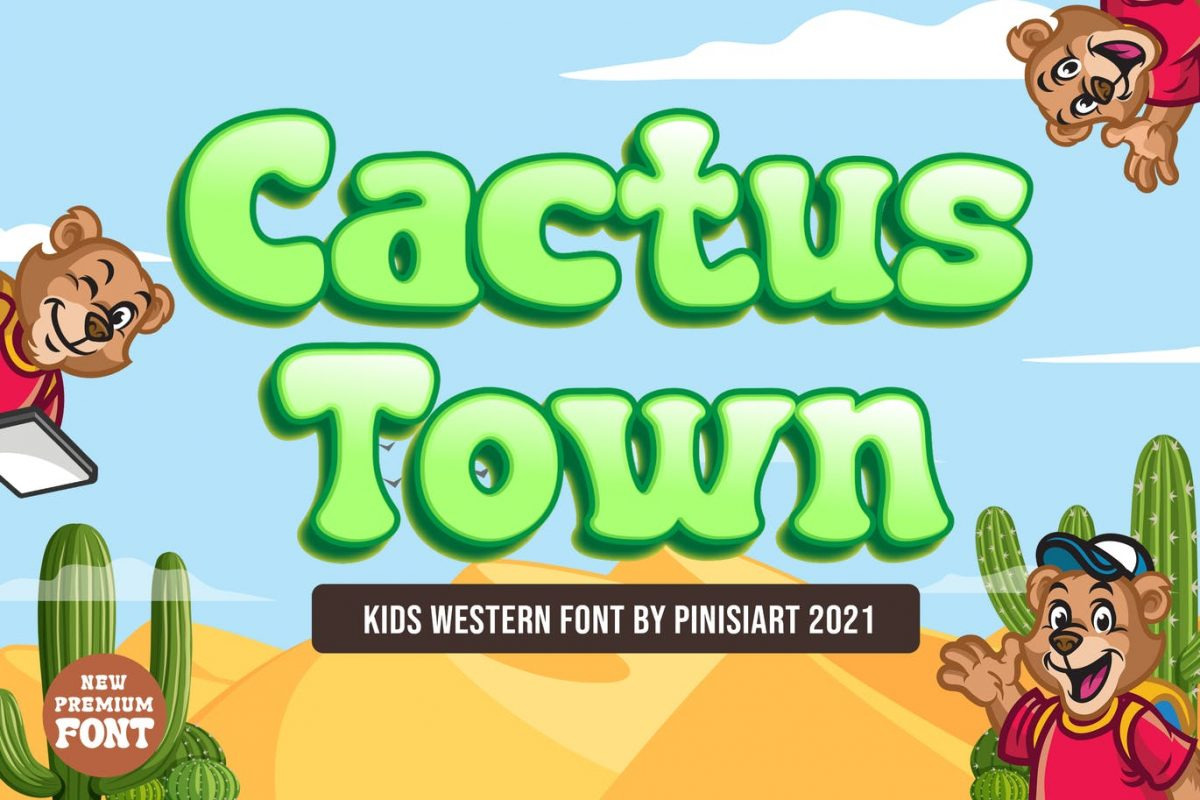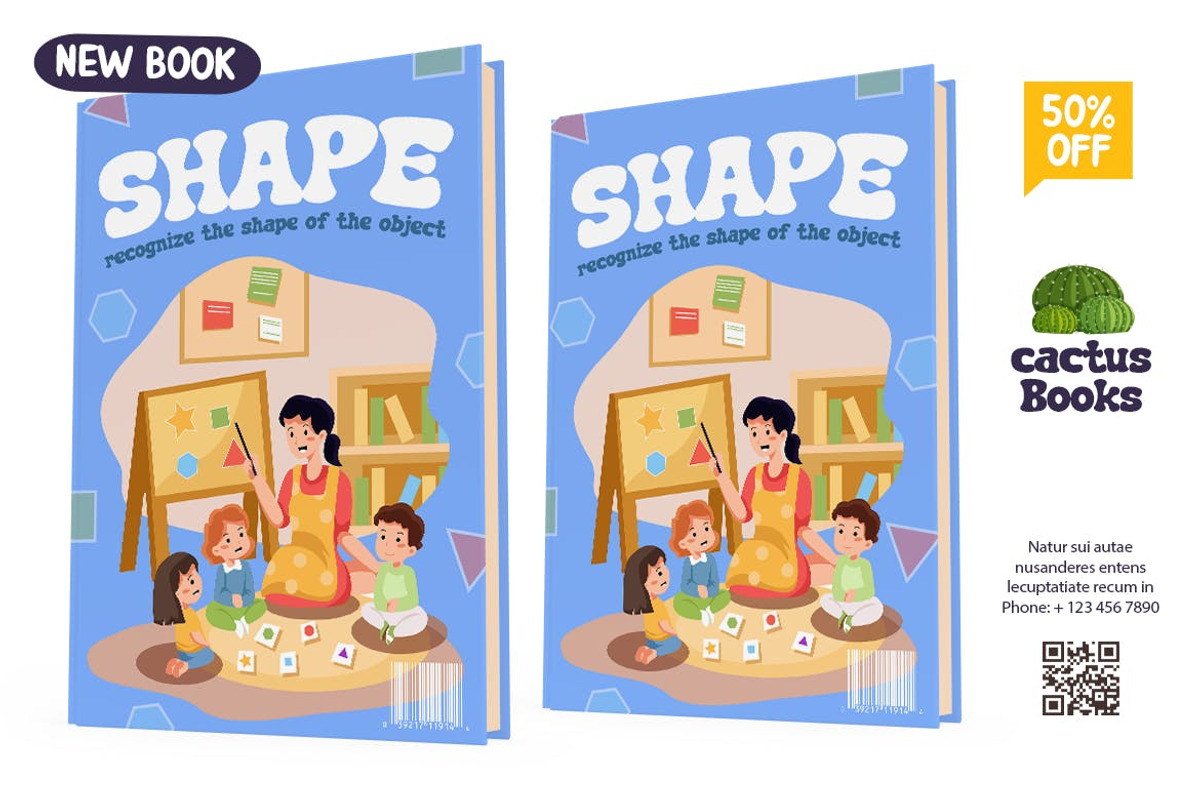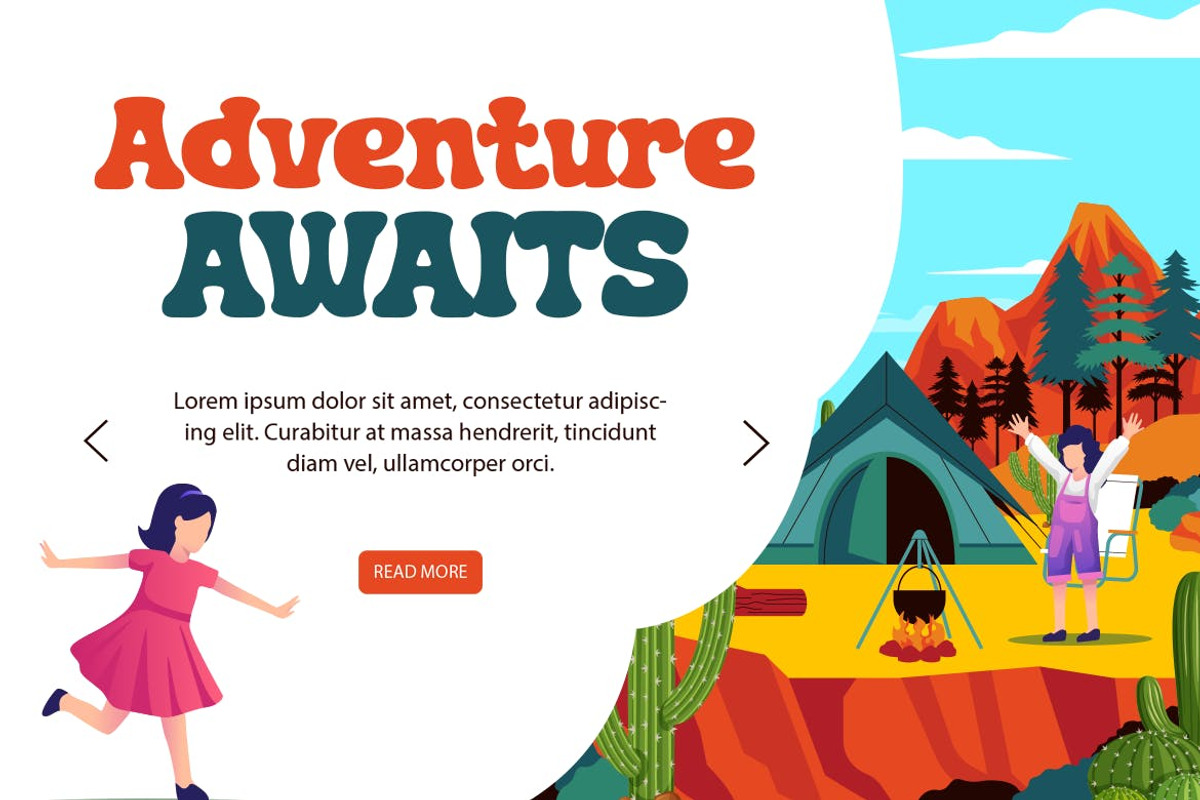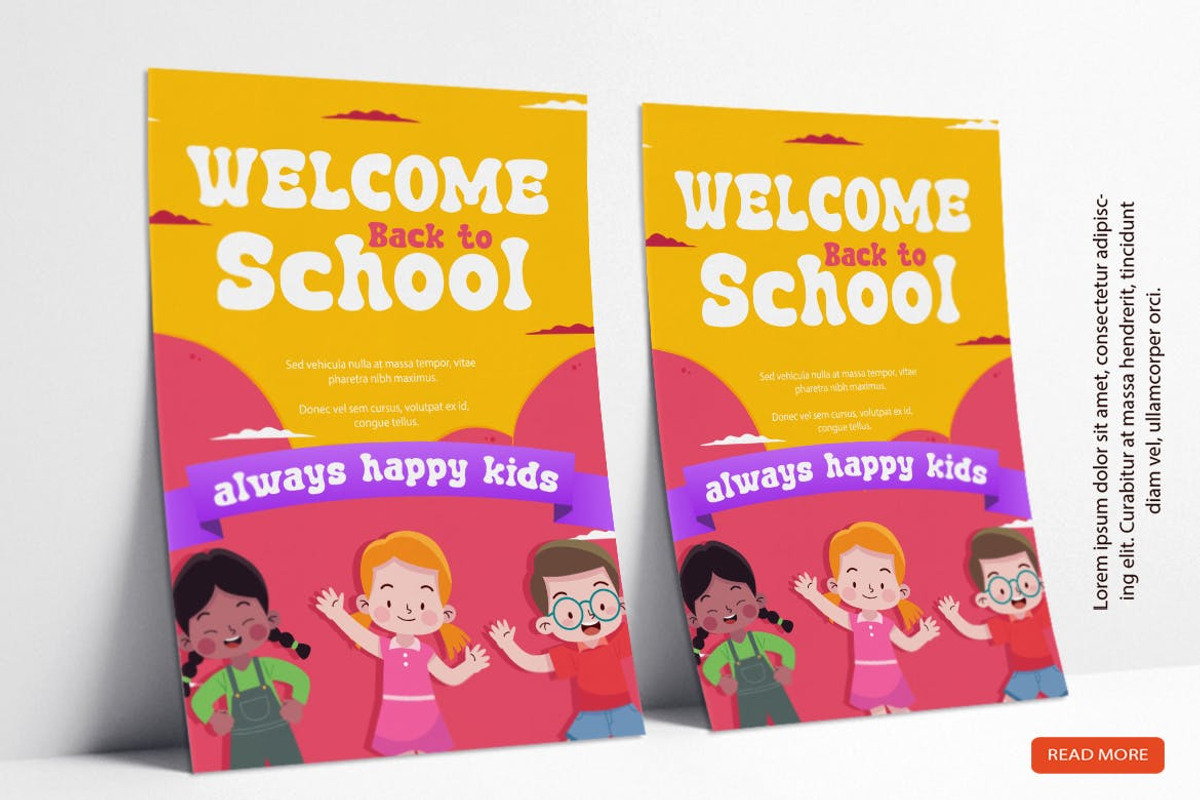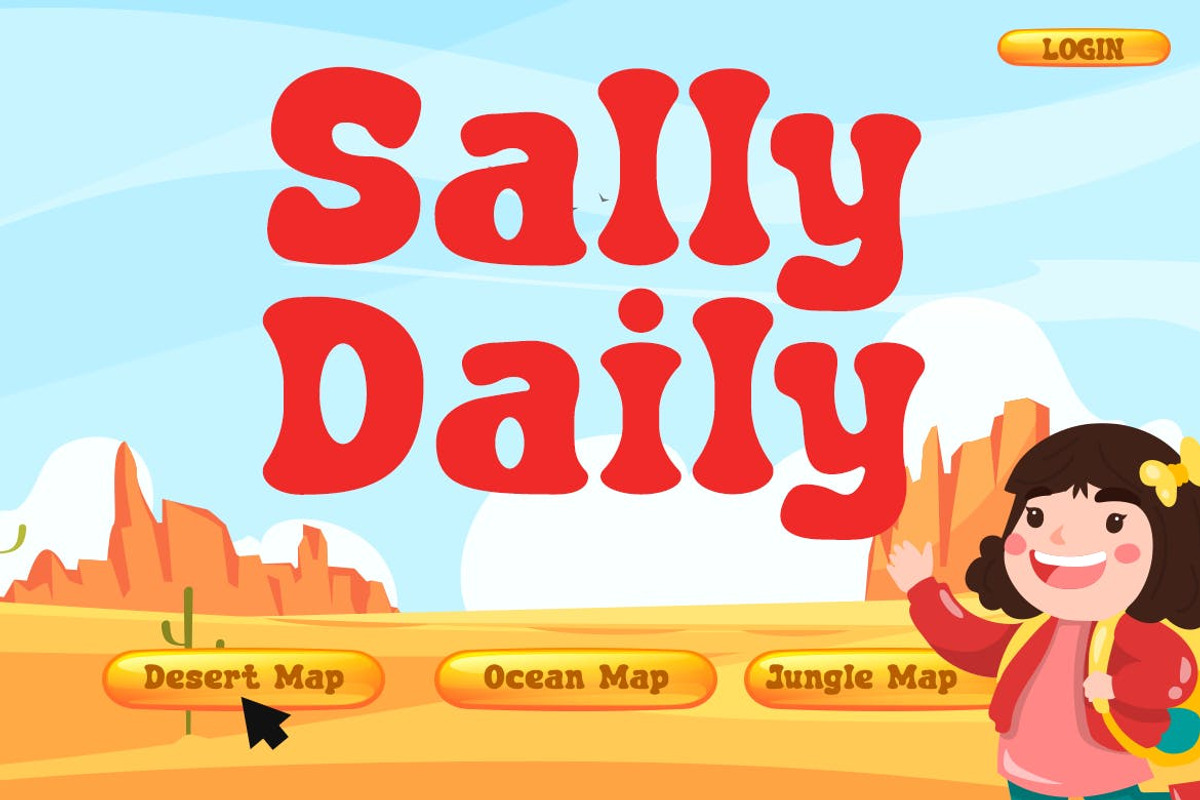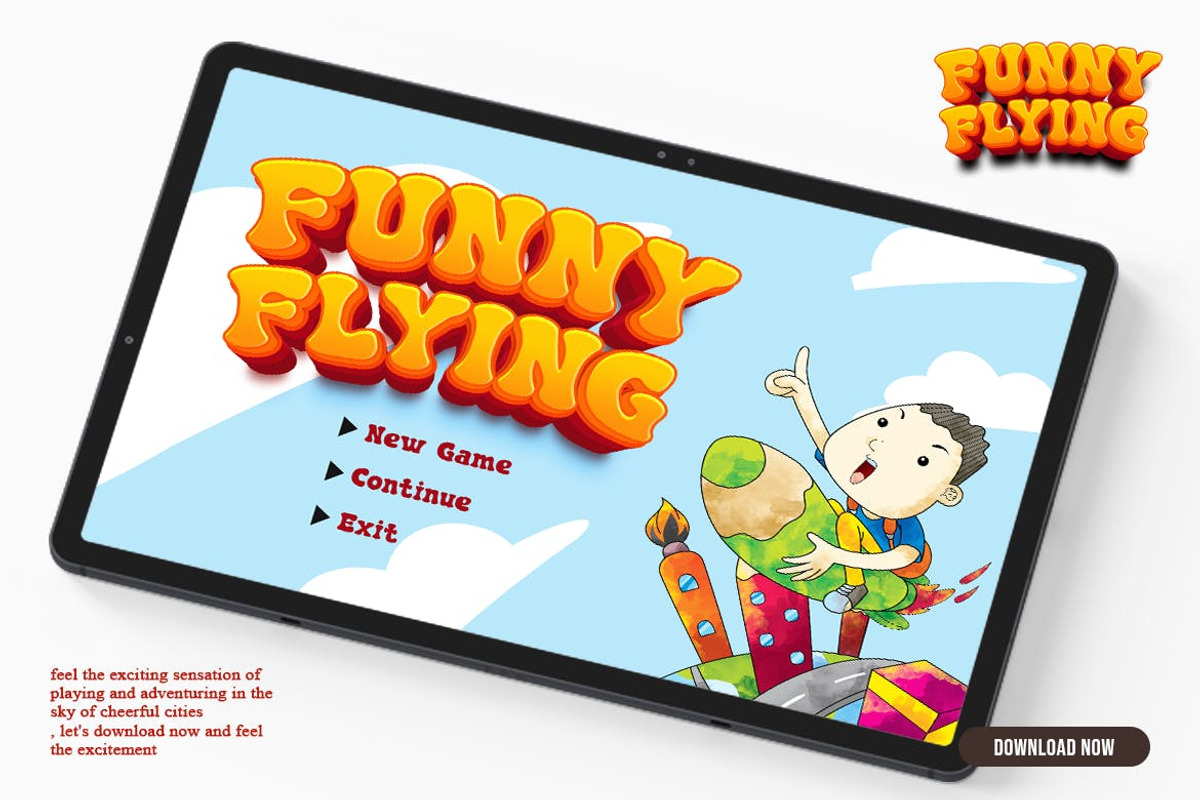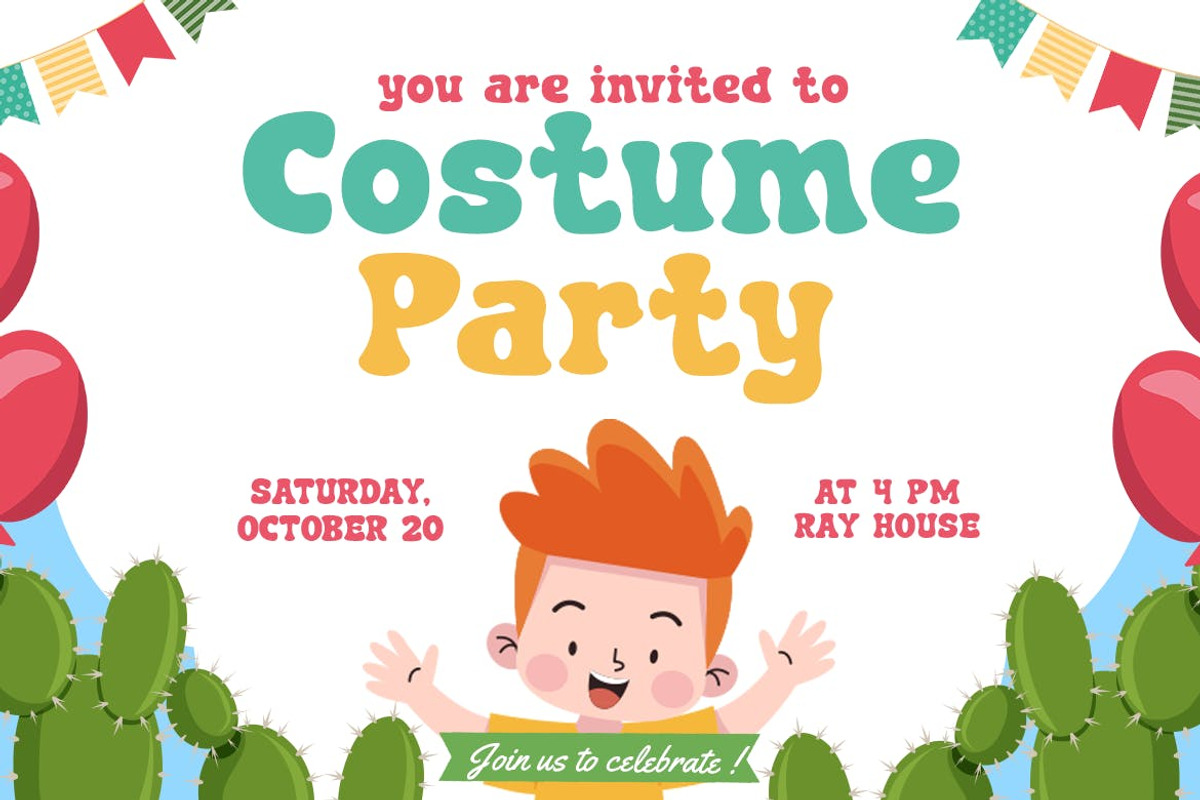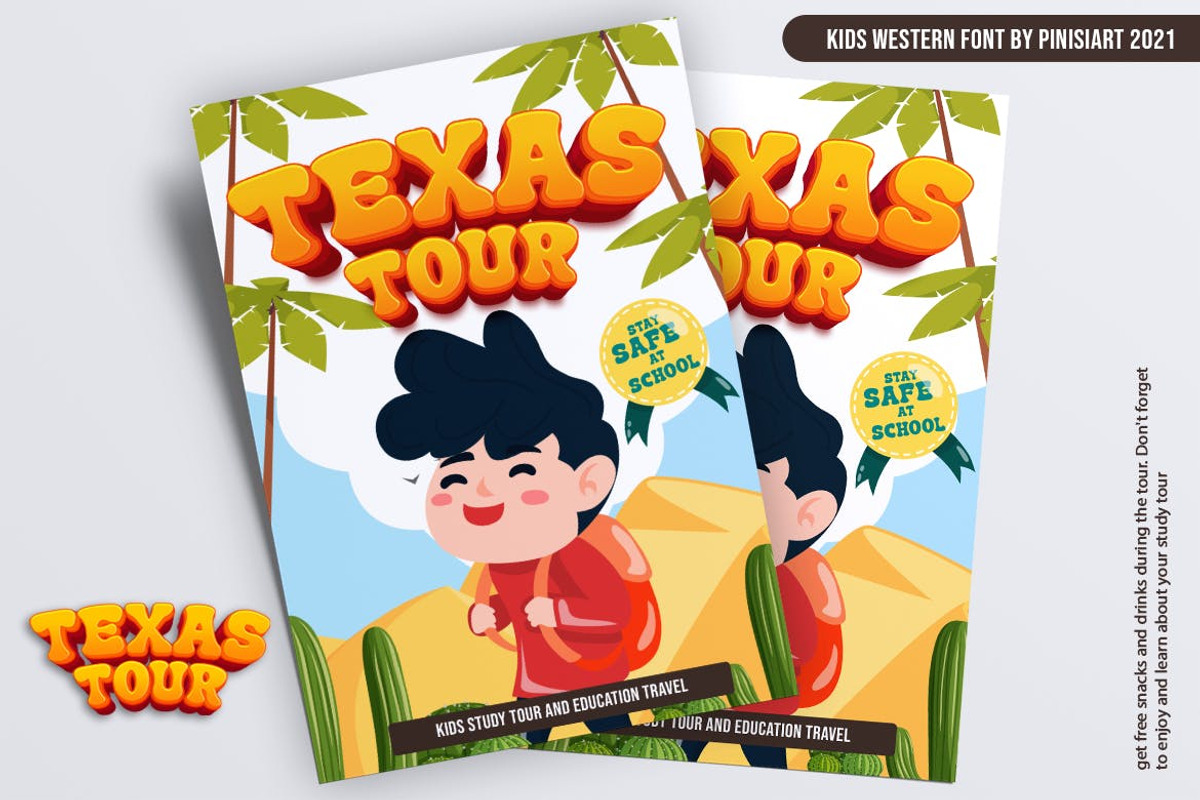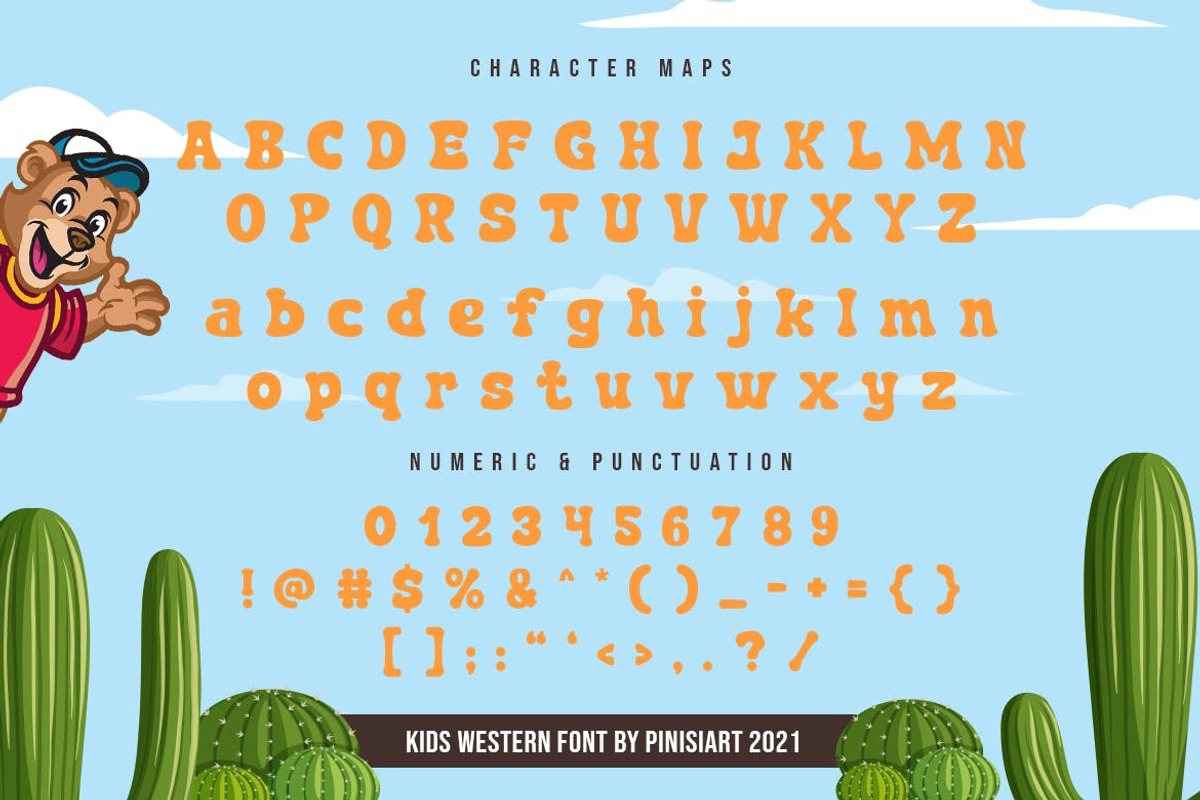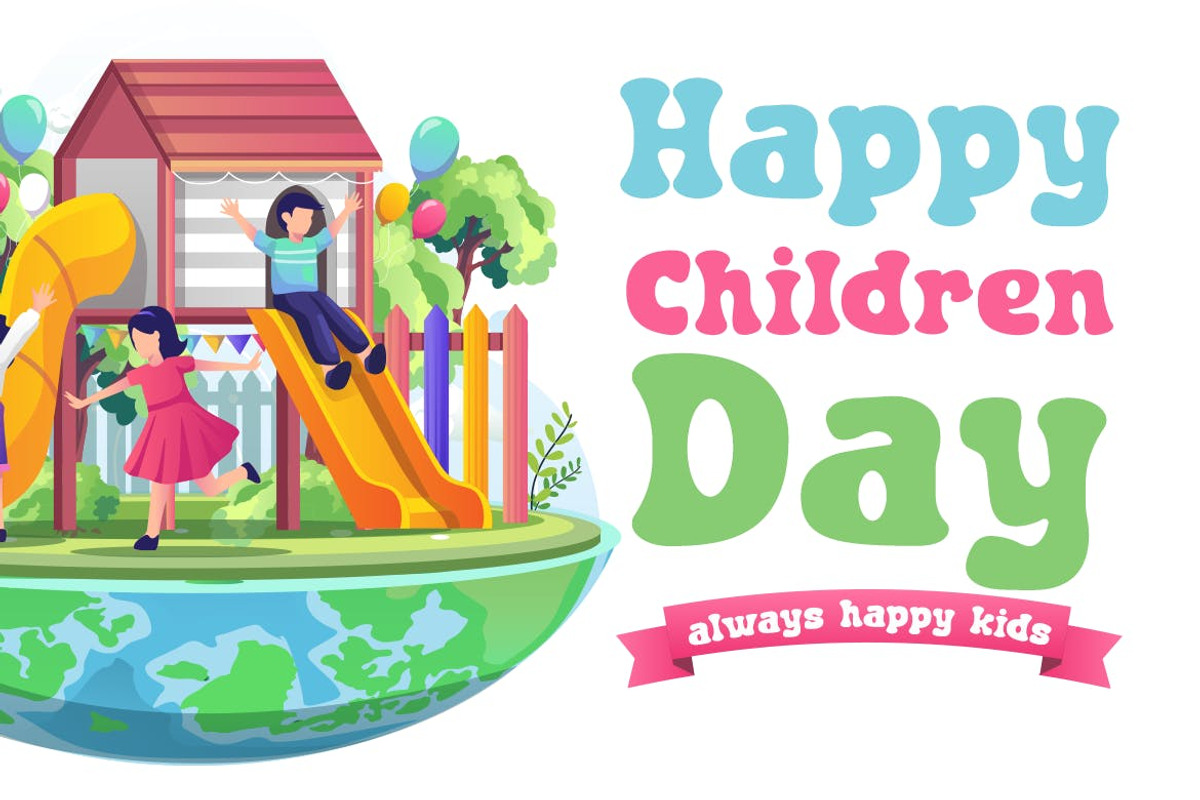
Cactus Town – Kids Font
Western vibe with lots of smiles. That is what Cactus Town is all about.
Suit perfectly for kids themes books market, online games, stationary, school supplies font, poster, birthday invitation, youtube covers, youtube thumbnails, social media page covers, and so on…